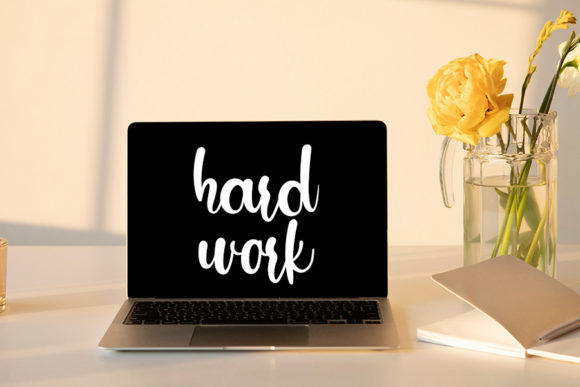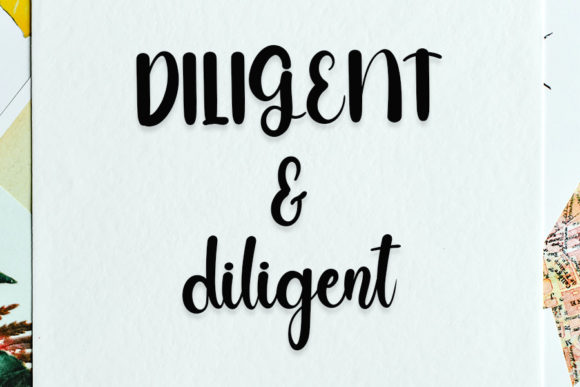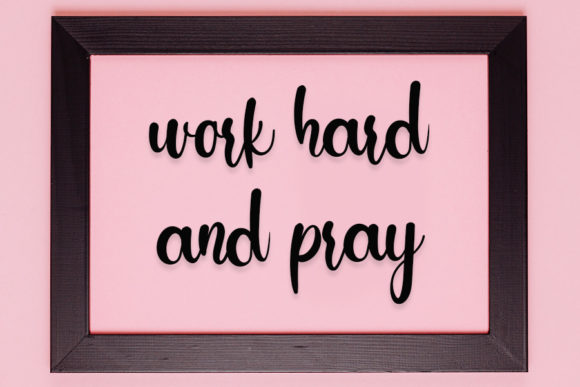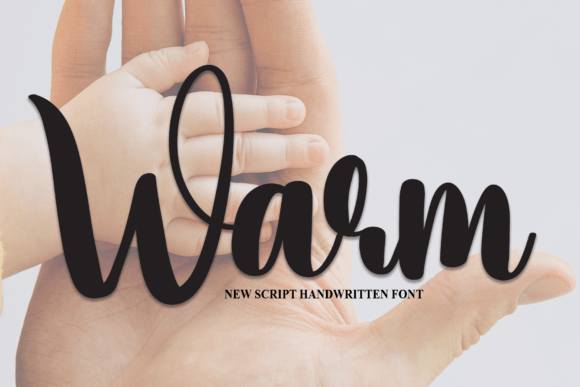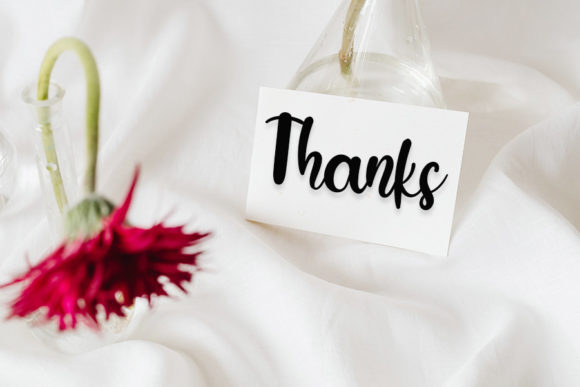
Future Font
About Future Font
Future is a captivating and stylish handwritten font that seamlessly blends contemporary flair with the timeless elegance of classic calligraphy. Its impeccable form and balanced design make it an excellent choice for enhancing the beauty of your diverse range of creative projects.
This font’s contemporary atmosphere is evident in its sleek and modern appearance. The fluid strokes and carefully crafted letterforms exude a sense of sophistication and innovation, making Future a perfect fit for designs that demand a touch of modernity and trendiness.
At the same time, Future pays homage to the grace and timelessness of classic calligraphy. The thoughtful combination of traditional calligraphic elements with a contemporary twist results in a font that feels both familiar and refreshingly new. This unique blend allows Future to bring a sense of history and elegance to your projects, setting it apart from other fonts.
The balanced and varied nature of Future ensures its versatility across a wide range of applications. From branding and logos to website headers, from social media graphics to packaging design, Future’s adaptable style seamlessly integrates into various design contexts. Its ability to complement and enhance different visual elements makes it a valuable asset for designers seeking to create captivating and memorable compositions.
Future’s sleek lines and graceful curves also lend themselves beautifully to projects that require a touch of elegance and refinement. Whether you’re designing wedding invitations, greeting cards, or any other sophisticated materials, this font can add a sense of luxury and allure that captures the essence of special moments.
For digital platforms, Future’s contemporary yet timeless appeal can shine on websites, app interfaces, and digital marketing materials. Its legibility and captivating aesthetics ensure that your message is communicated effectively while leaving a lasting impression.
Incorporating Future into your projects allows you to tap into a font that not only meets the demands of modern design but also brings a touch of classic charm. Its impeccable form and balanced design contribute to its ability to enhance the beauty of your creations, making Future an excellent choice for elevating your designs to new levels of elegance and sophistication.